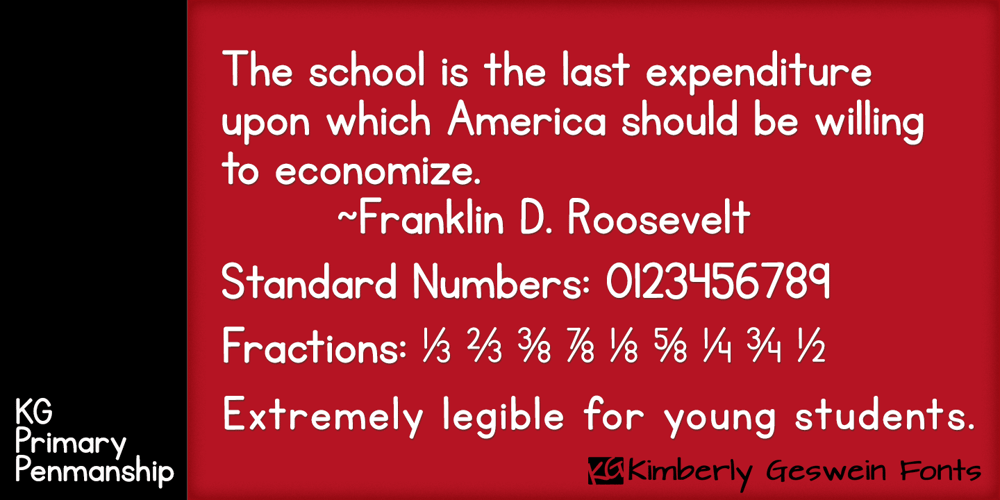
KG Primary Penmanship Font Family was designed by Kimberly Geswein and published by Kimberly Geswein. KG Primary Penmanship contains 3 styles and family package options. I come from a family of educators- my mom, husband, stepmom, brother-in-law, and sister are all currently teaching and I have taught in the past. This font was created after speaking to several elementary school teachers who were struggling to find just the right font to use on worksheets and projects in their classroom. They liked many features of other fonts, but needed small things altered in order to make a “perfect fit” for their class. Hand-drawn by me, this font hopefully addresses several of those issues. As penmanship styles vary across the globe, I am sure this font will not work in every classroom. But hopefully this style will work for many teachers to give their early readers a highly legible, neat, accurate font. It is best used with kerning turned on to allow for accurate letter spacing.